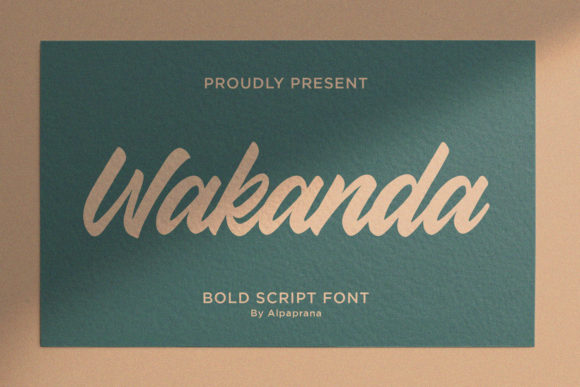
Dive into the realm of Wakanda, a font family that embodies the spirit of strength, confidence, and dynamism. Inspired by the rich heritage of handwritten calligraphy, Wakanda's cursive strokes ignite a passionate allure in every project they grace. As a script font, Wakanda possesses an intrinsic charm that uplifts your designs with a delightful touch of nostalgia.
Step into a world where your headlines and logotypes radiate with a unique character. Wakanda's meticulously crafted curves evoke a sense of elegance, adding a touch of sophistication to any project. Immerse yourself in the versatility of this font, seamlessly enhancing your designs with a distinct flair.
Feel the power of Wakanda elevate your creative vision. Unleash your imagination and craft designs that captivate and inspire. With its graceful lines and dynamic spirit, this font invites you to tell stories with a touch of charm and allure. Let Wakanda's undeniable presence transform your designs into unforgettable masterpieces.